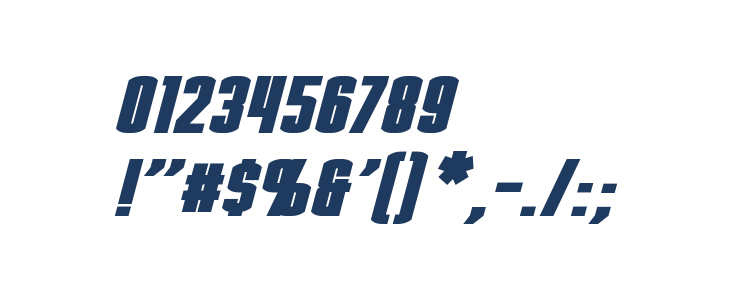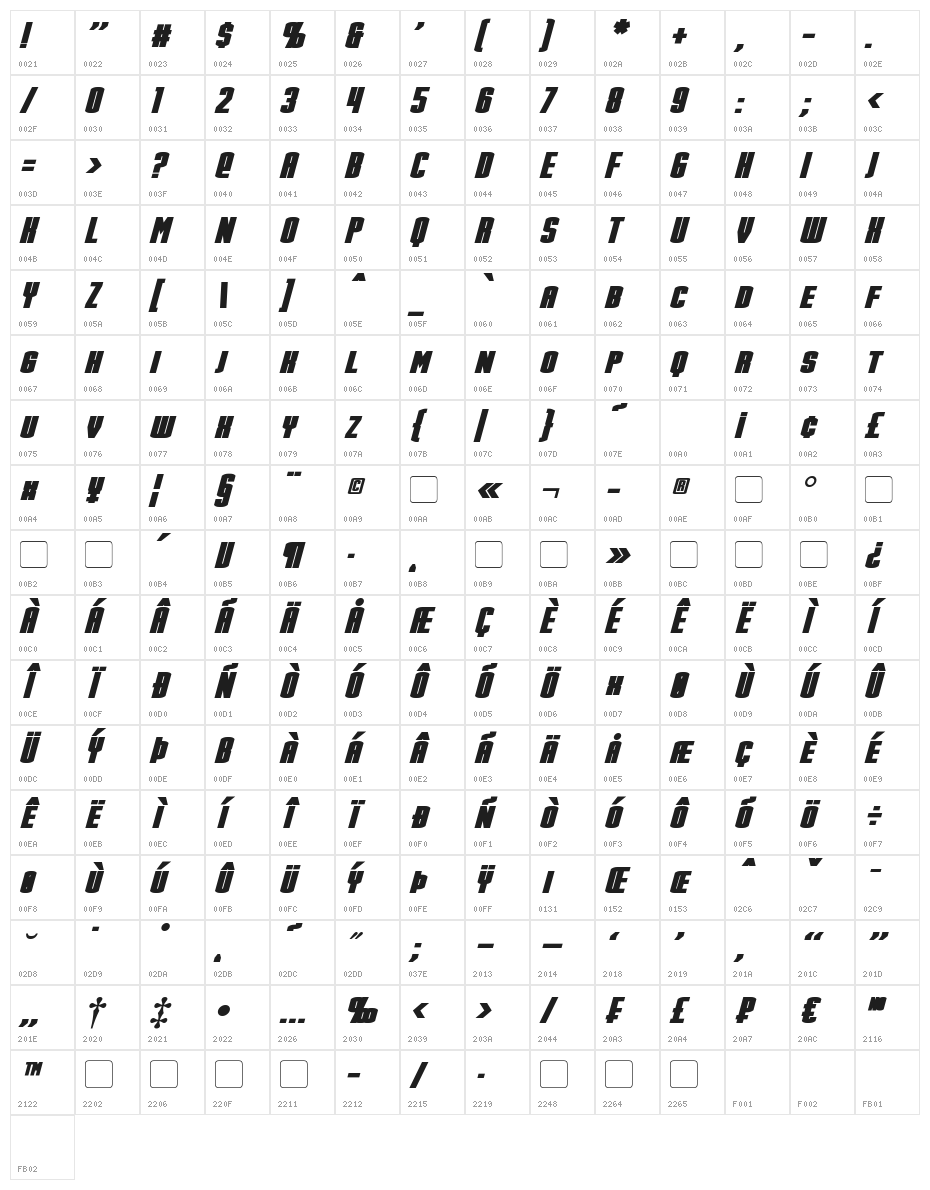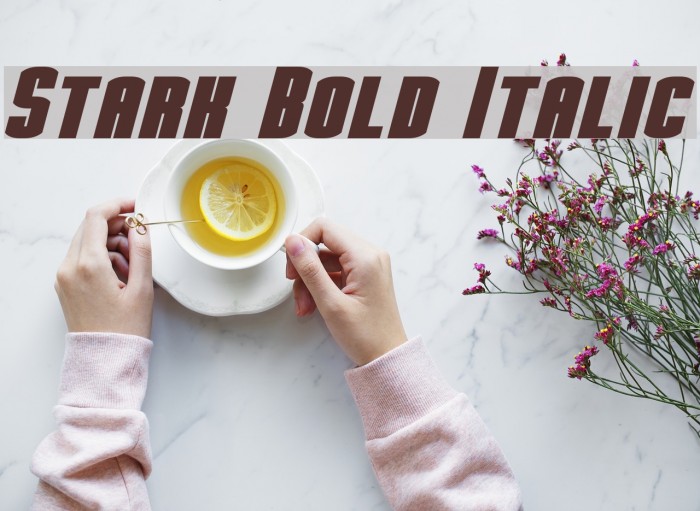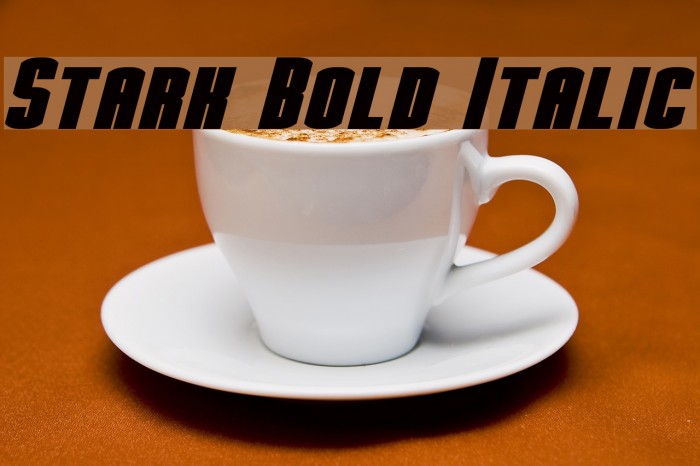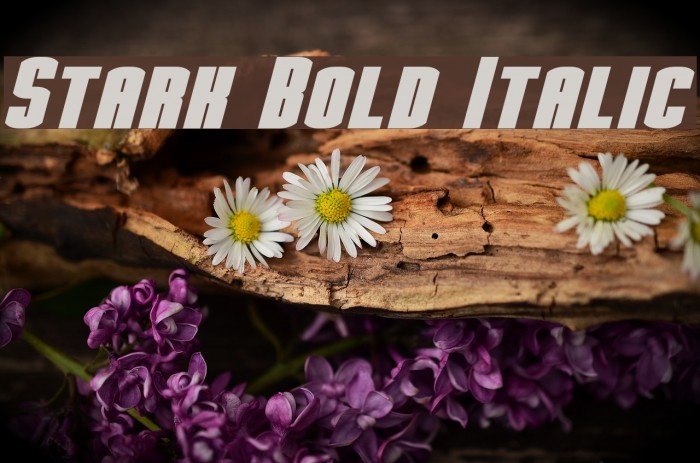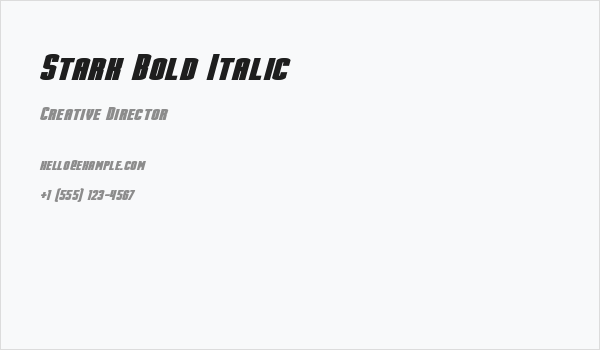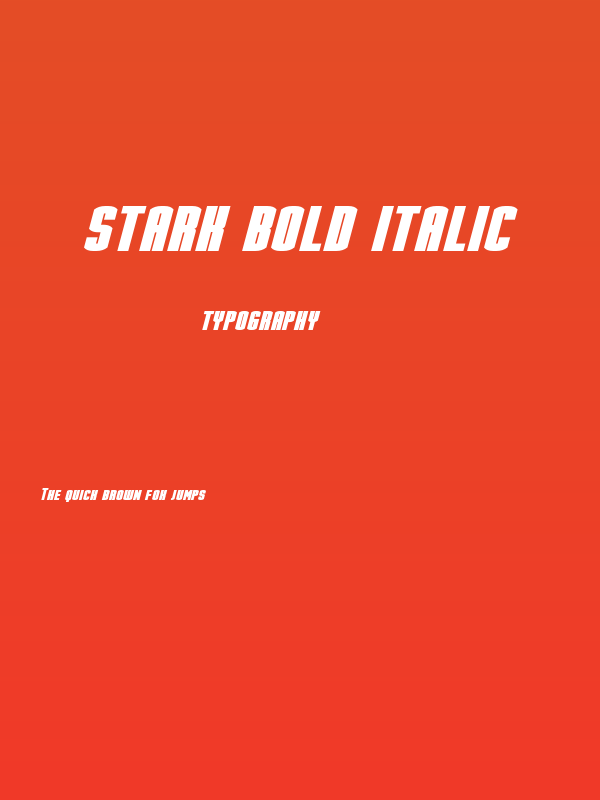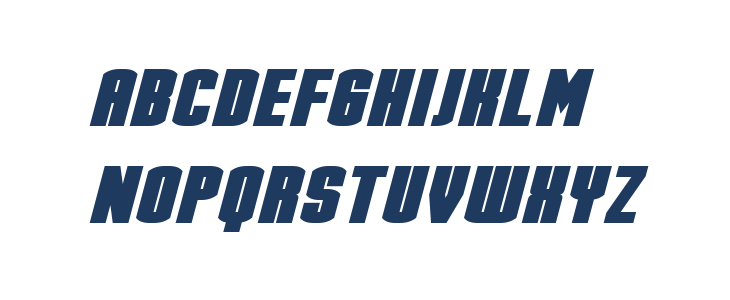
Stark Bold Italic Font
Stark Bold Italic Description
This font features a bold and italic style with a strong, impactful presence. The characters are designed with a forward slant, giving a sense of motion and dynamism. The strokes are thick and consistent, providing a robust and confident appearance. The uppercase and lowercase letters maintain a uniform width, contributing to a cohesive look. The numbers and special characters are crafted to match the bold aesthetic, ensuring readability and visual harmony. This font is ideal for making a statement, with its high contrast and tight character spacing adding to its striking nature.